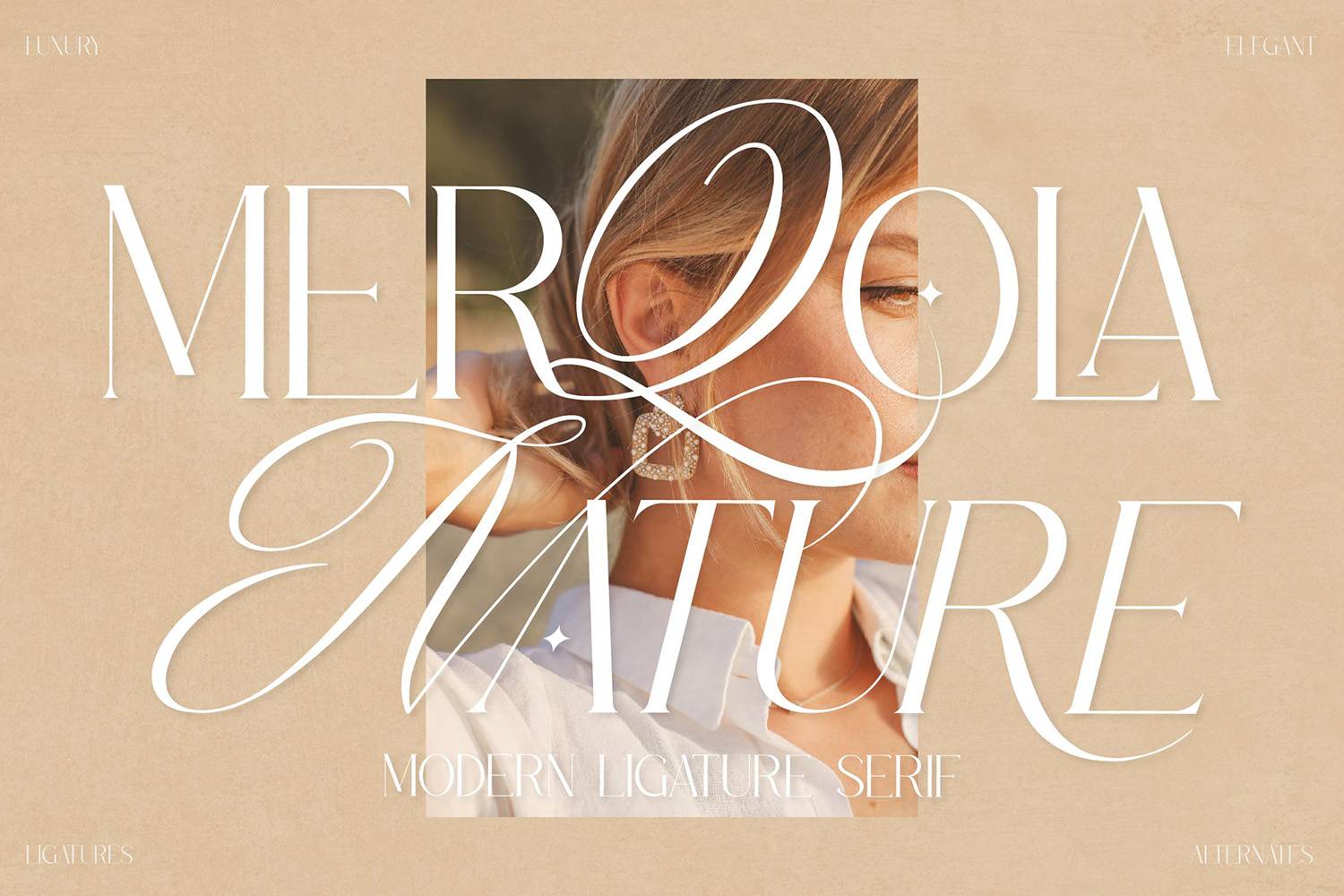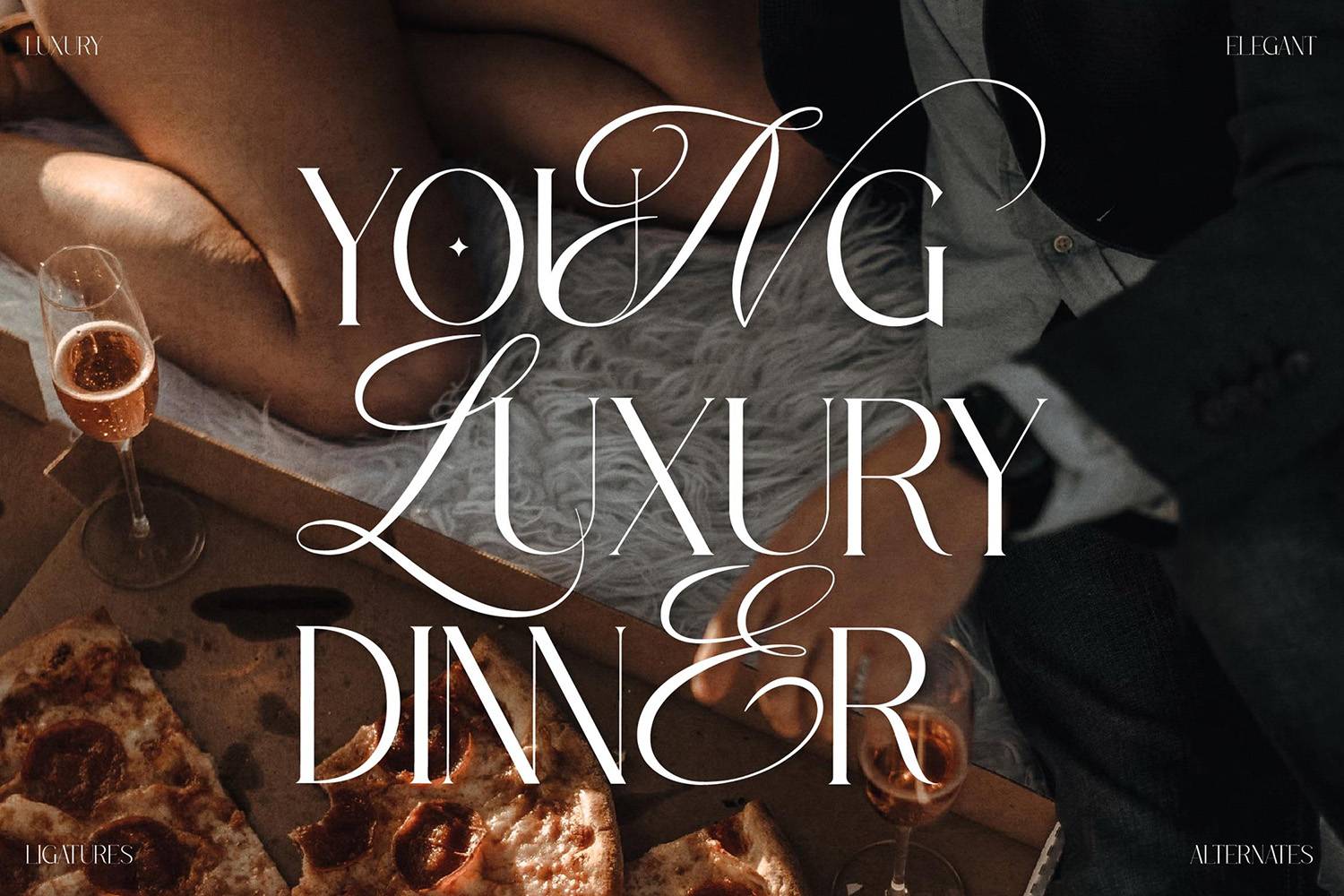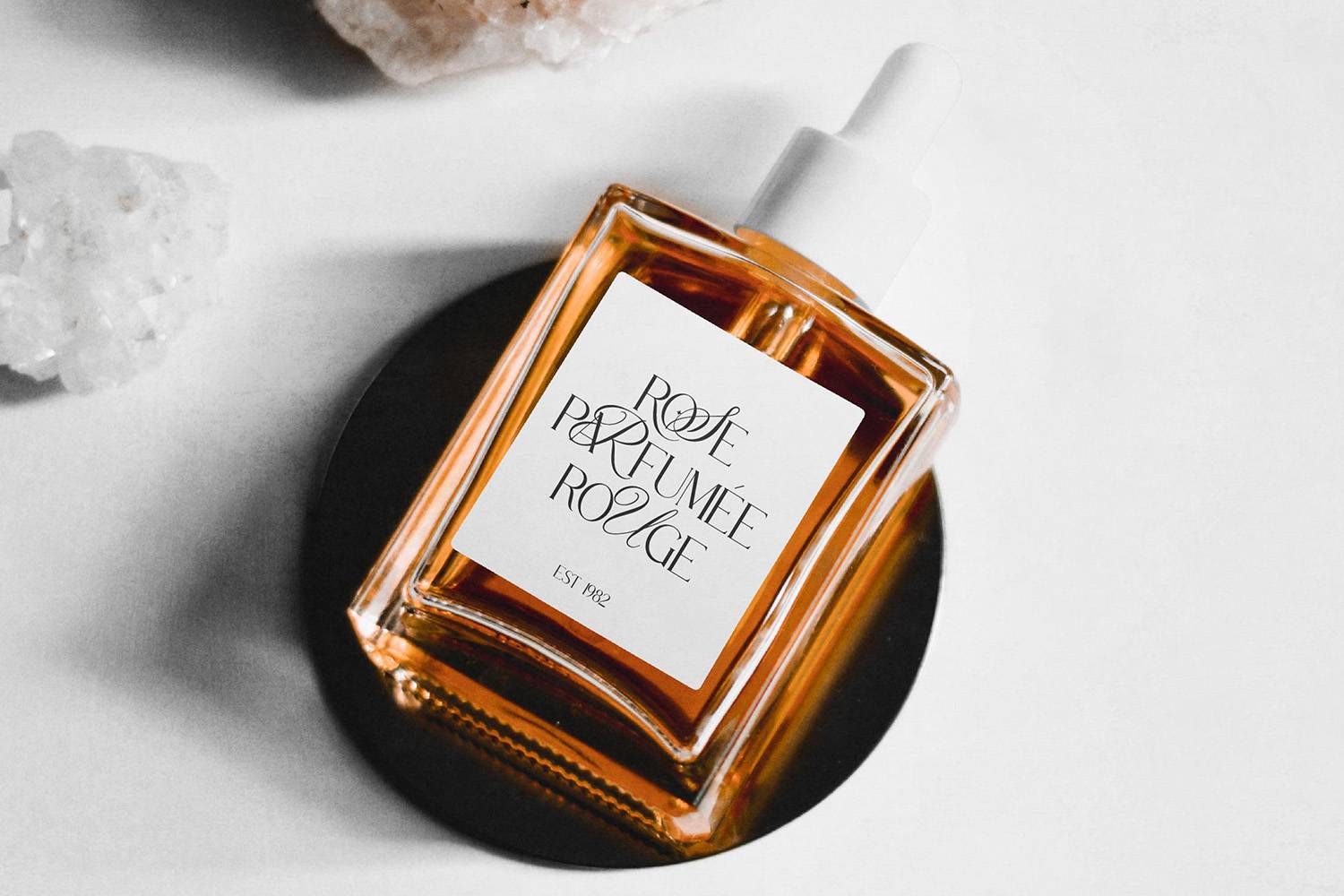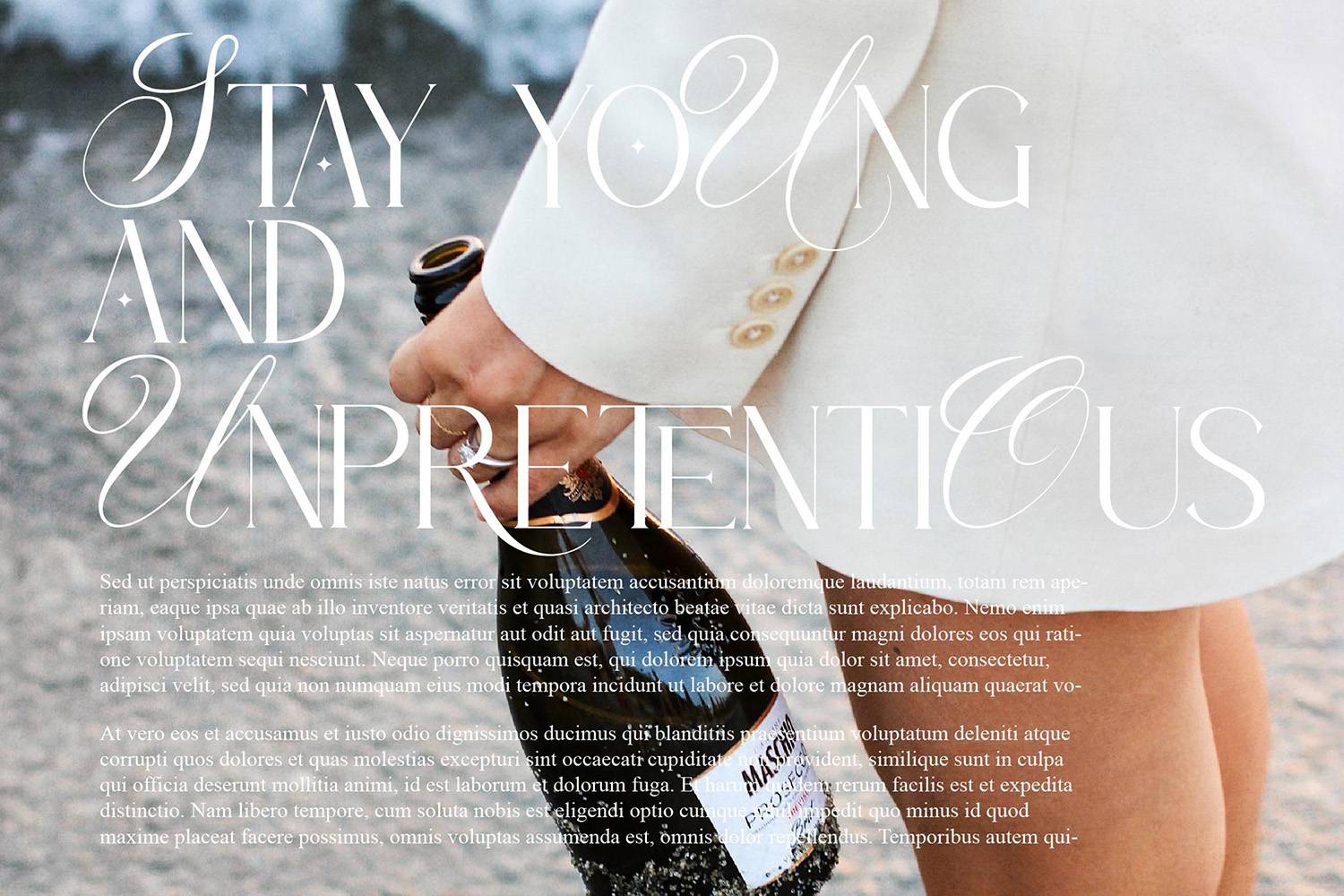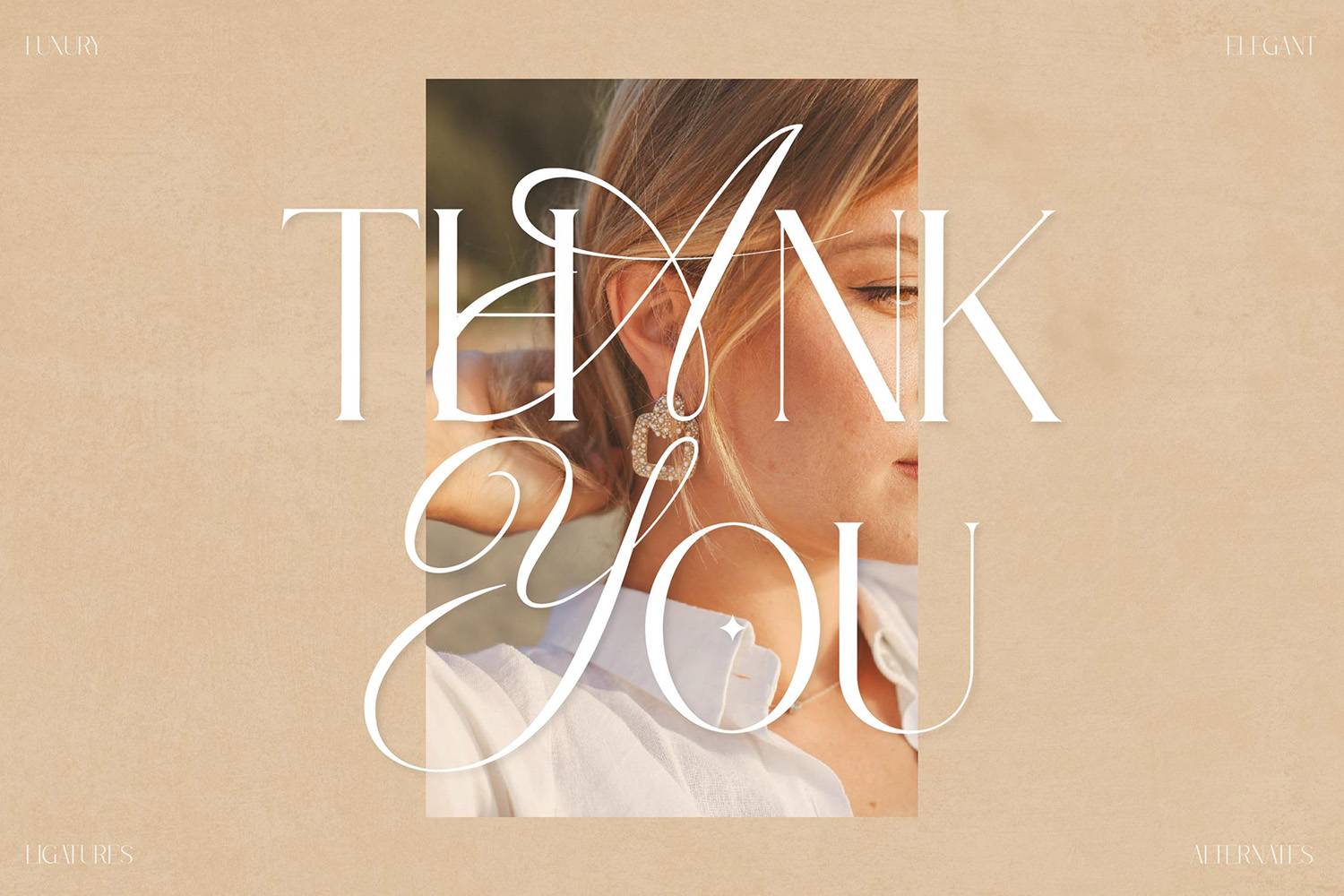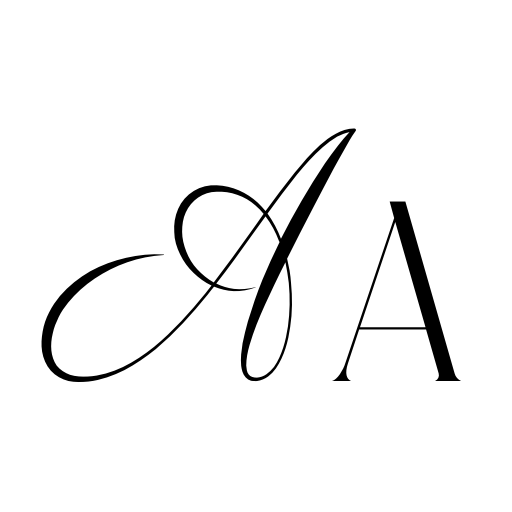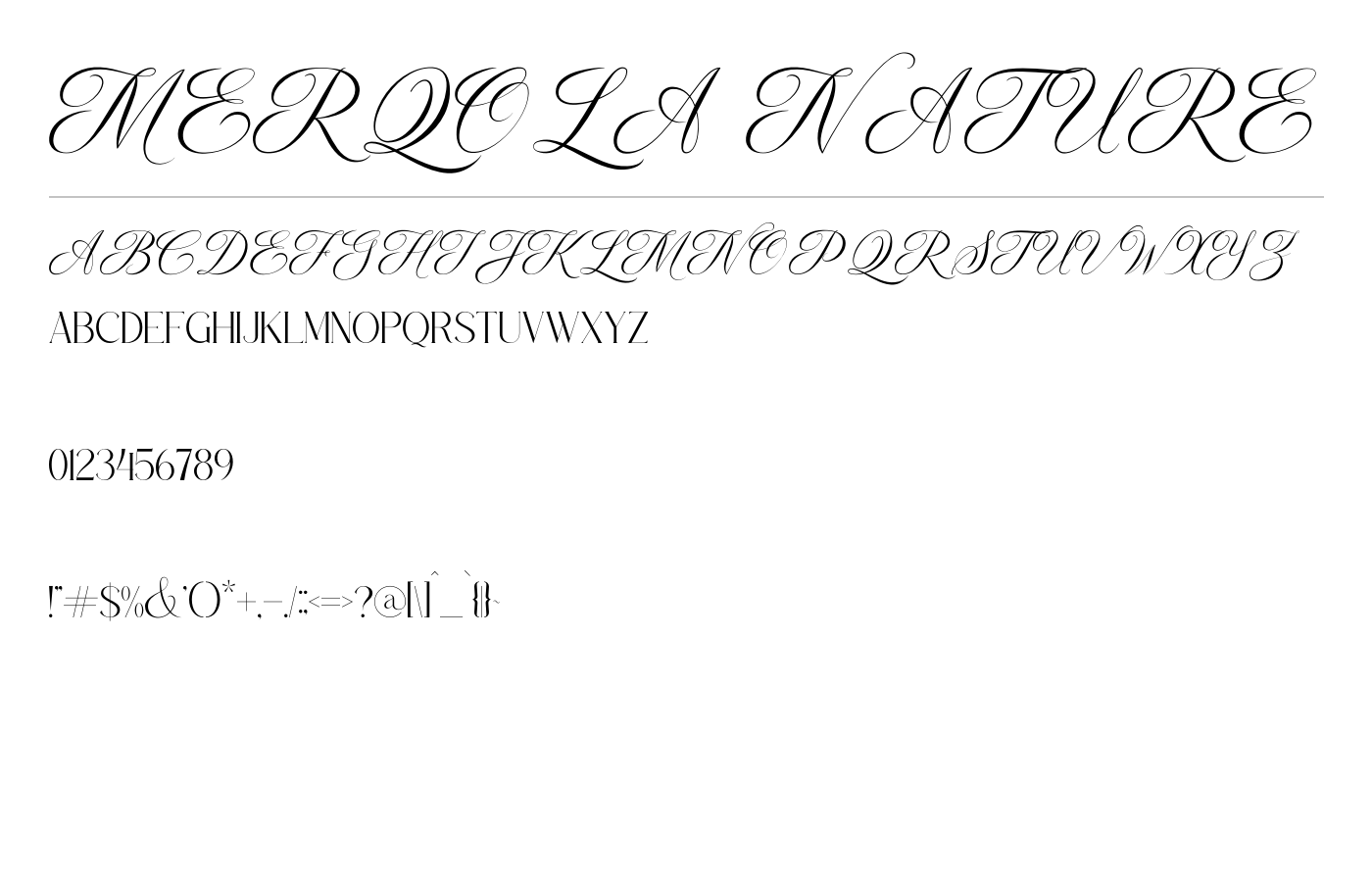
Merqola Nature is an elegant serif font combining a delicate modern didone style with refined high contrast strokes and graceful, flowing calligraphic swashes. Its tall, slender letterforms and decorative uppercase alternatives evoke luxury and sophistication, making it ideal for upscale branding, invitations, and stylish editorial headlines. This font shines when used to convey elegance and refinement, perfect for fashion, beauty, and premium product designs.
Merqola Nature Font